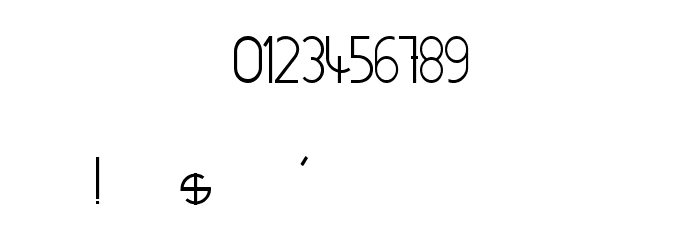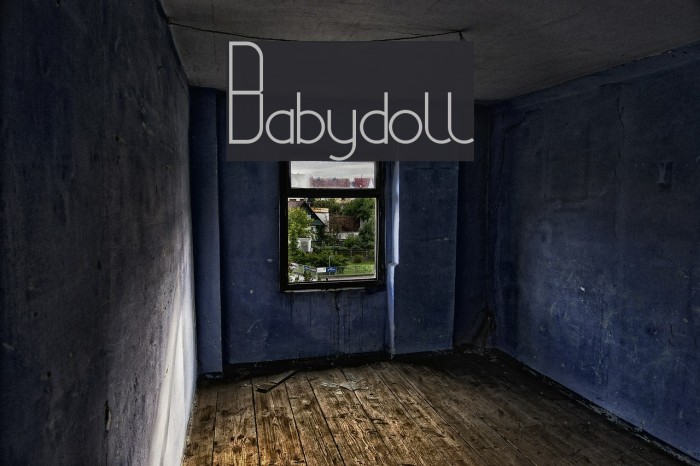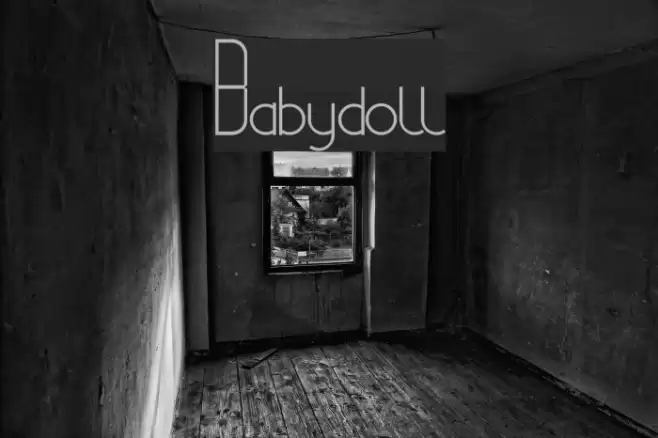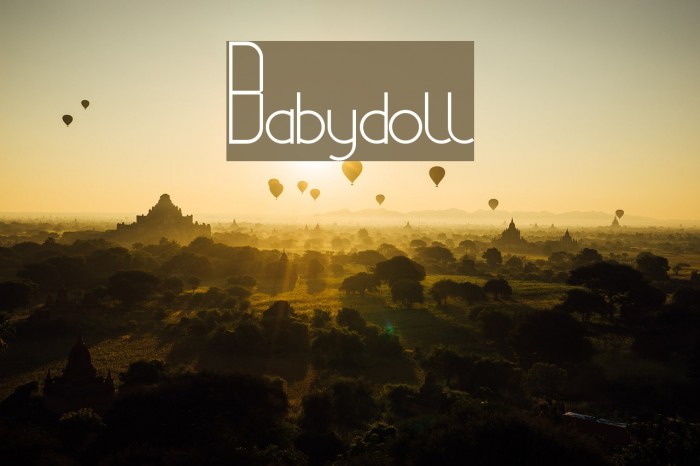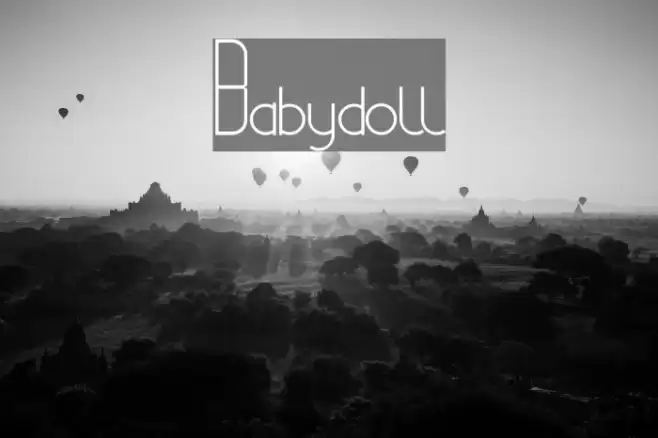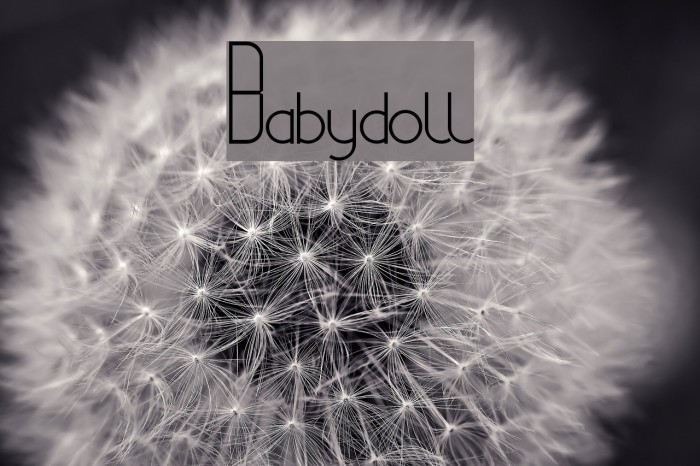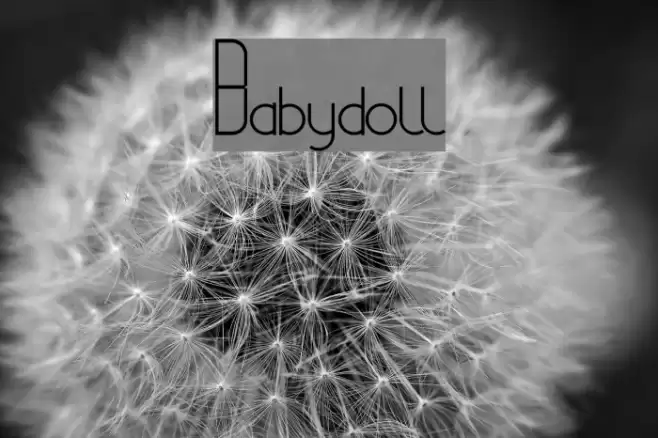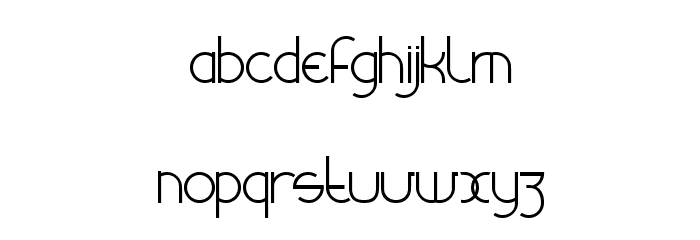
Babydoll Font
This font features a unique and modern design with elongated, thin strokes that create a sleek and stylish appearance. The uppercase letters are tall and narrow, giving an elegant and sophisticated look, while the lowercase letters maintain a consistent style with slightly rounded edges. The numbers follow the same design principles, ensuring uniformity across all characters. Special characters are included, maintaining the overall aesthetic. The font's clean lines and geometric shapes make it suitable for contemporary design projects.
A modern, elongated font with sleek, thin strokes and geometric shapes.